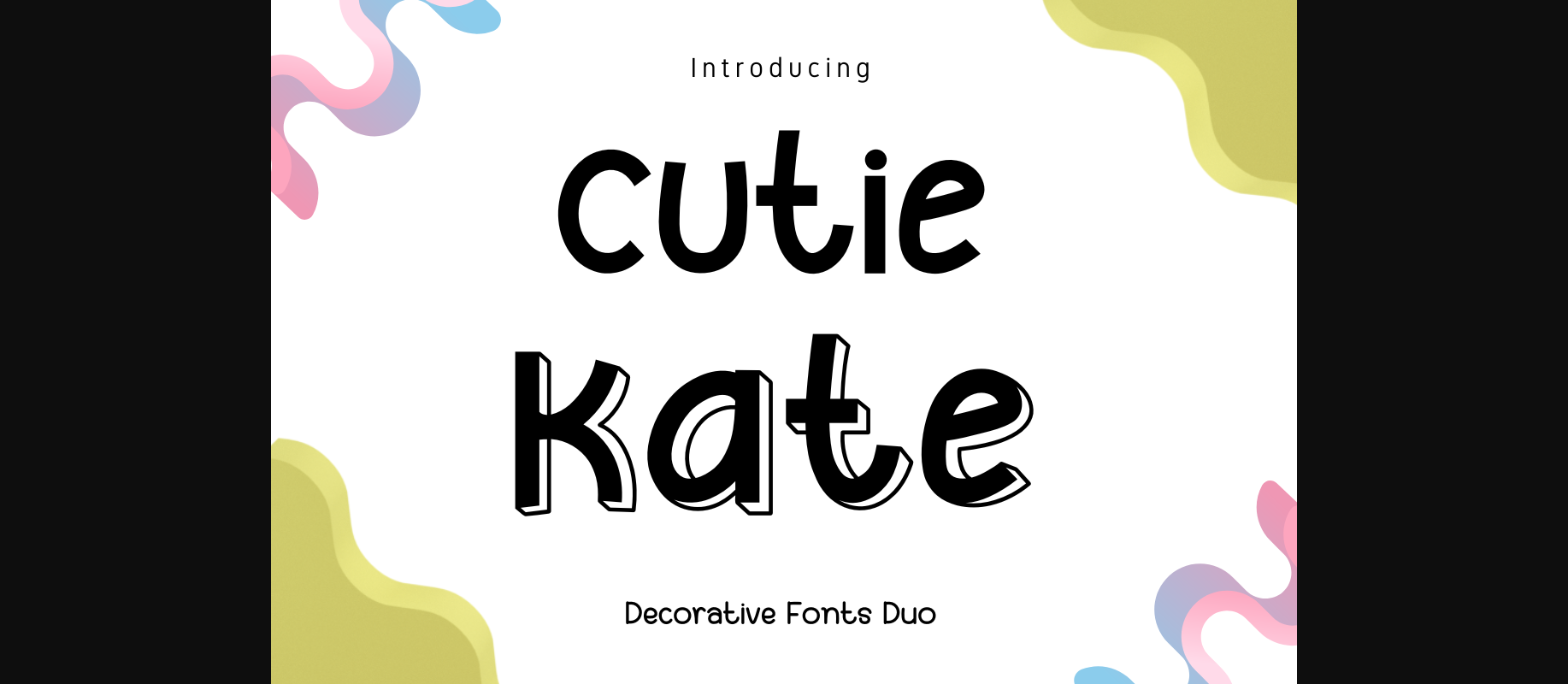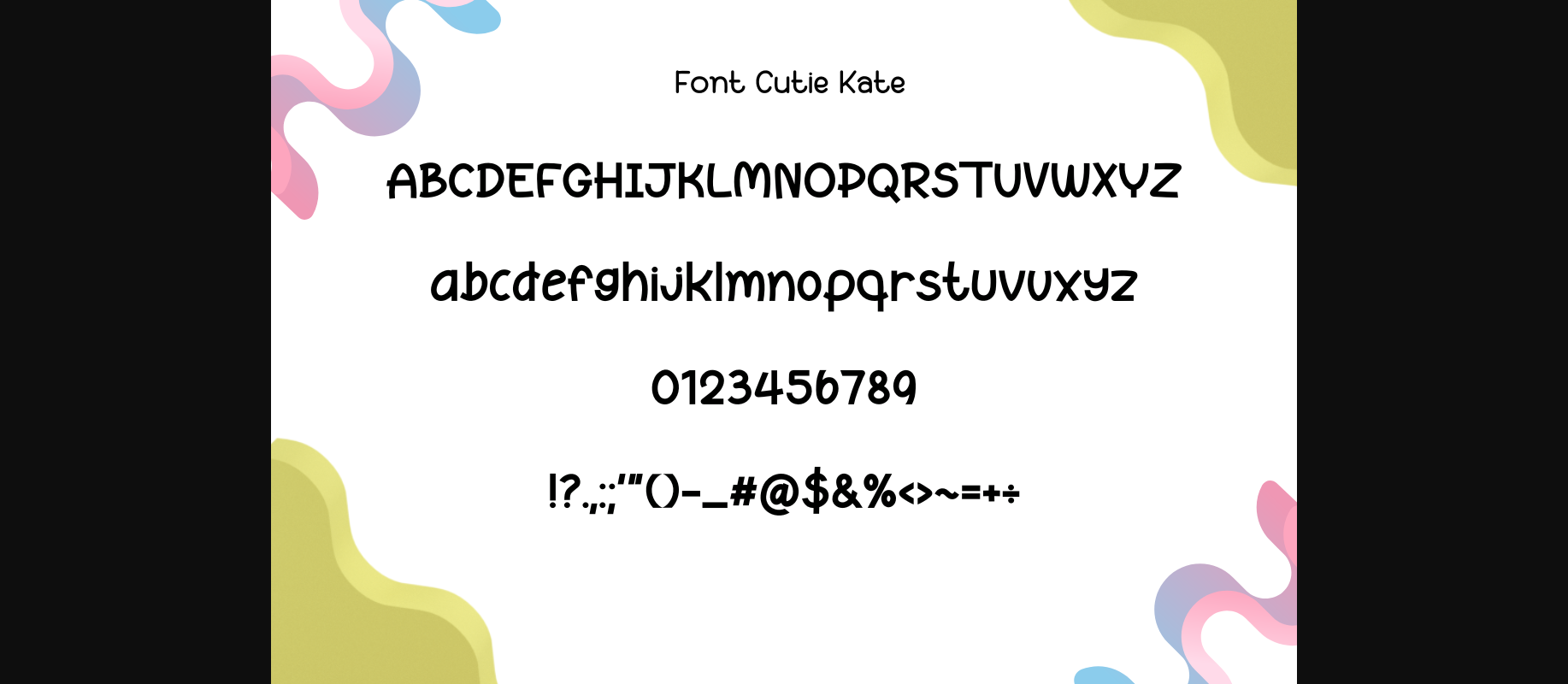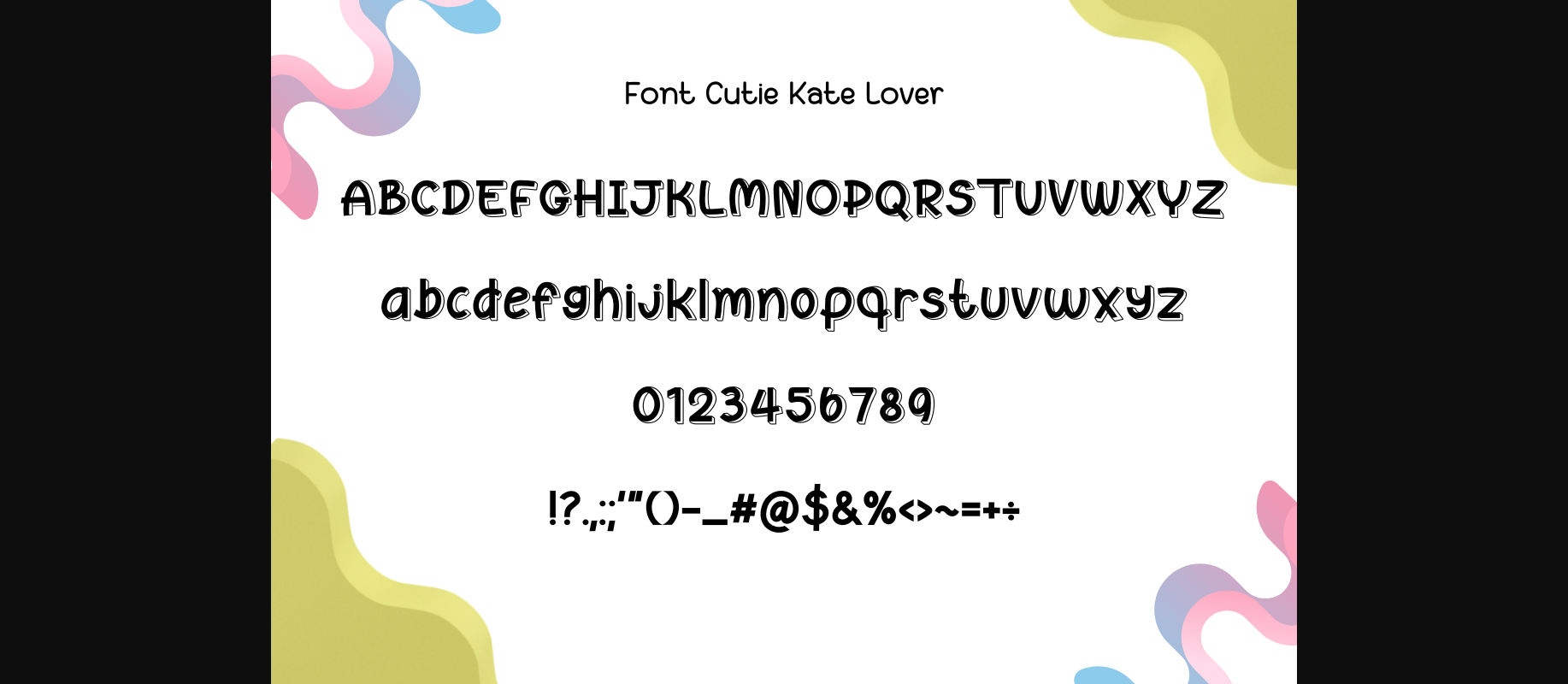
About Cutie Kate Duo Font
Cutie Kate Duo are cute decorative fonts in 2 styles. Bold fonts combined with different elements get new fonts that are cute and fun. Perfect for creating a wide variety of new designs to match products such as banners, content, mugs, cards, shirts, stationery, social media posts, and more!